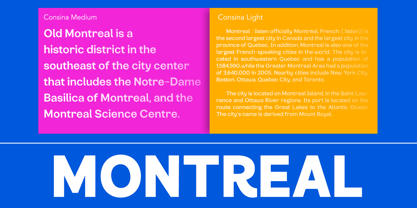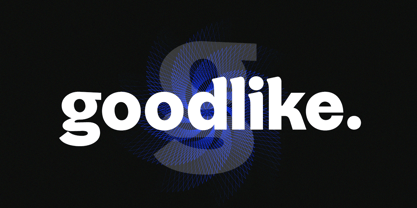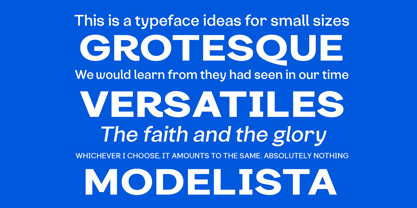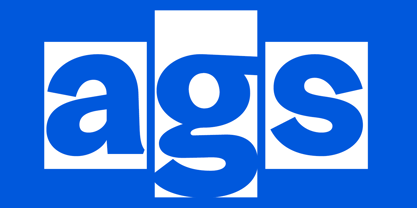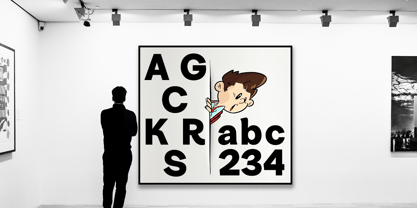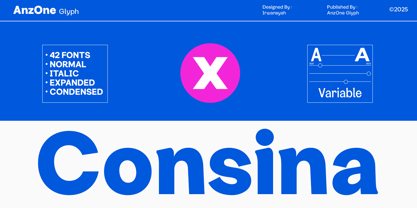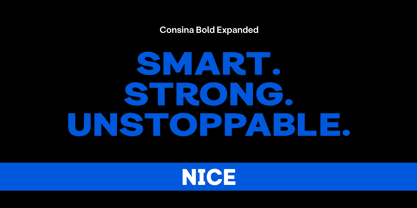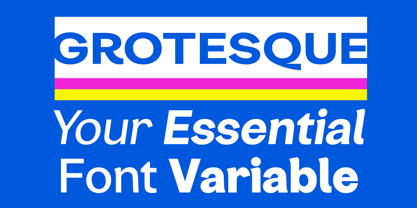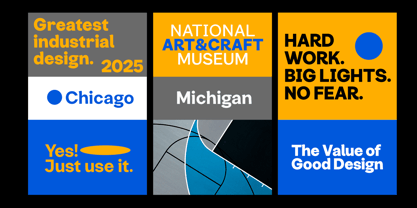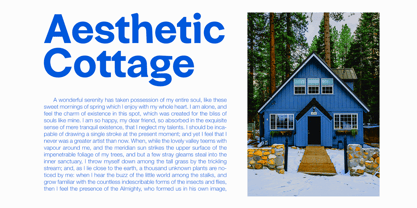
Consina
by Anzone glyph
The Consina Font Family was designed by Irwansyah and published by Anzone glyph. Consina contains 43 styles and family package options. More about this family
Consina Variable Sans Serif Gothic is a modern gothic-style sans-serif font that combines the strength of geometric shapes with the flexibility of variable design. Built to be both bold and functional, this typeface delivers solid letterforms, high precision, and excellent readability across various media. With support for a variable weight axis, users can adjust the font weight from Light to Black within a single font file offering creative freedom without sacrificing visual consistency. The Gothic Sans style of Consina is characterized by compact forms, sharp terminals, and minimal contrast making it ideal for professional use such as headlines, posters, signage, UI/UX design, and branding that demands a strong, modern presence. Key Features: - Variable Gothic Sans Serif Bold appearance with full flexibility in one file. - Sharp & Precise Design Each character is built with stable, consistent proportions. - Multilingual & Accessible Supports a wide range of Latin characters and common symbols. - High Versatility Optimized for both print and digital applications.